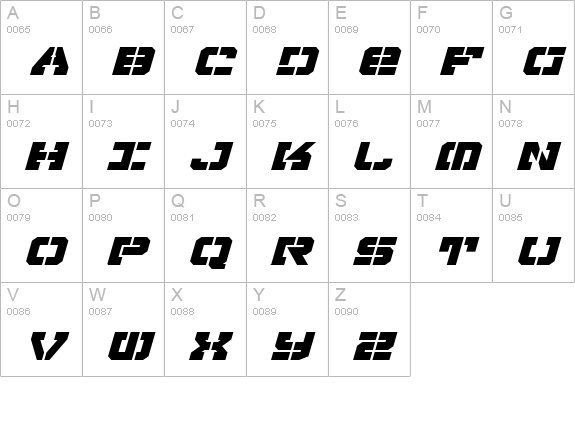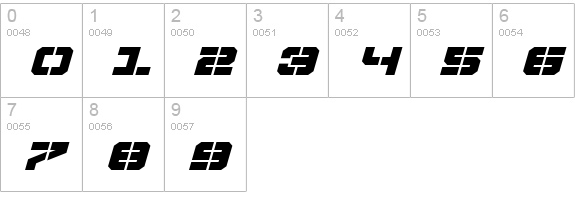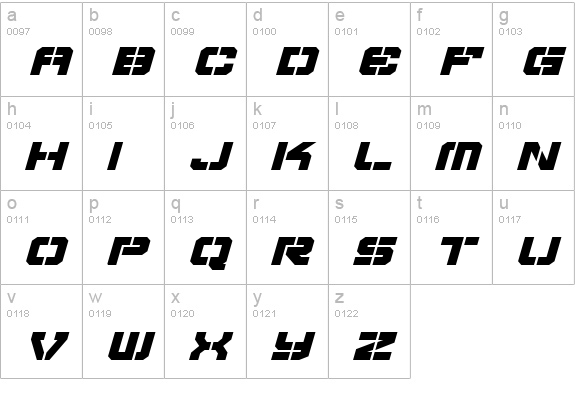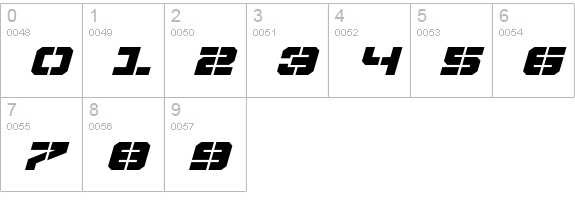
Vyper Bold Expanded Italic is a strong, high-contrast, extended-width, italic variant in the Vyper typeface family \xE2\x80\x94 well suited to headlines, attention-grabbing titles, and strong calls-to-action.
Vyper Bold Expanded Italic is a dynamic and striking font that exudes power and strength. Its bold design and exaggerated width make it perfect for making a statement in headlines, titles, and branding materials. The italicized slant adds a touch of elegance and sophistication to the overall look. This font is ideal for projects that require a bold and impactful presence, such as posters, banners, magazine covers, and more. Its versatility allows it to be used in a variety of design settings, from modern and edgy to classic and refined. Best of all, Vyper Bold Expanded Italic is available for free download at FontsMarket.com. Get your hands on this eye-catching font today and take your designs to the next level with its bold and expressive style.